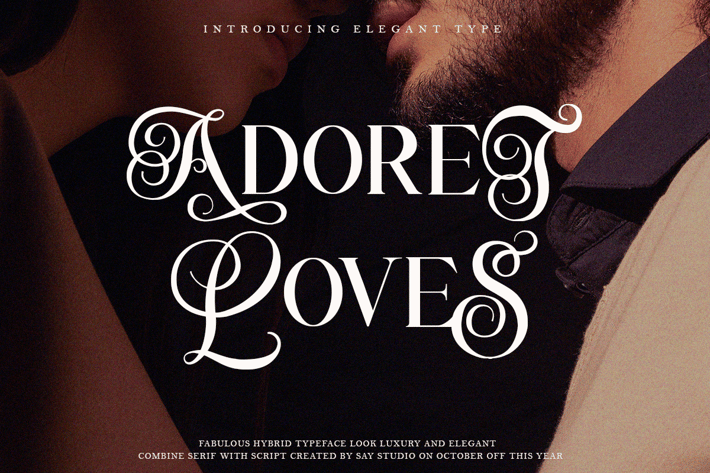
Adoret Loves - Luxury Modern Font
Adoret Loves is a beautiful a Fabulous hybrid font from modern serif with elegant script. Come with 2 versions regular & italic
Adoret Loves is made mainly for headlines, titles, and other short texts and is well-suited for advertising, vintage mood board, branding, logotypes, packaging, titles, editorial design, modern logos, websites, social media quotes, wedding branding, modern and vintage design.